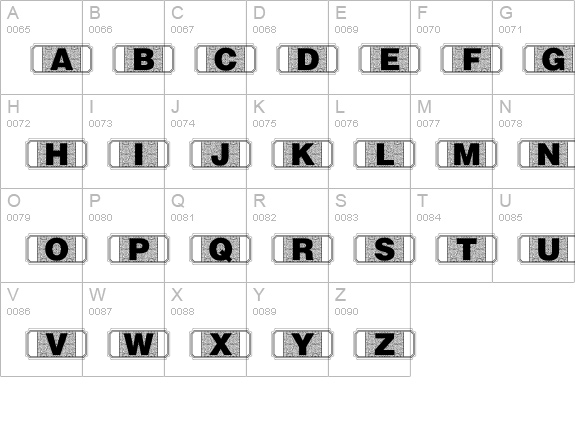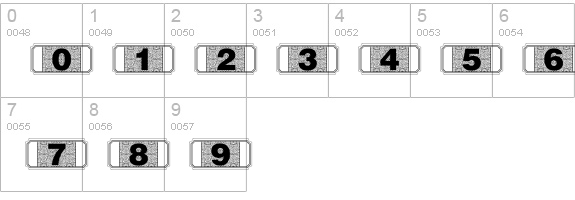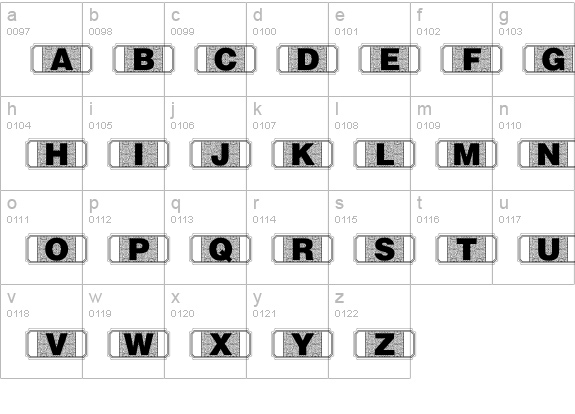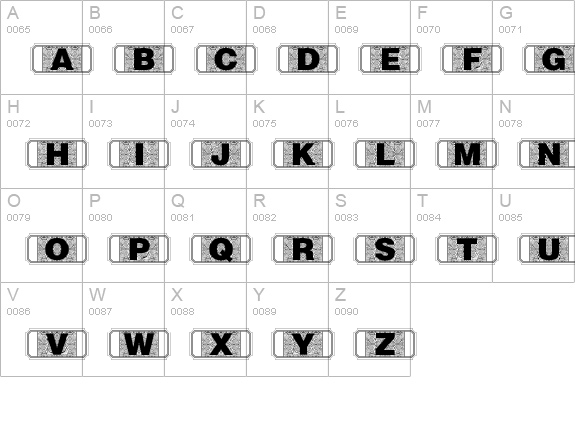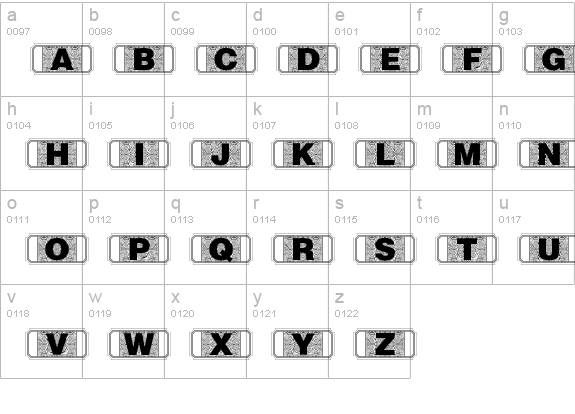
StagTickets font is a beautifully designed typeface that exudes elegance and sophistication. Its sleek and stylish letterforms are perfect for adding a touch of class to any project. This versatile font is suitable for a wide range of applications, from invitations and wedding stationery to branding and logo designs. One of the most appealing aspects of StagTickets font is that it is available for free. Yes, you read that right - this amazing font can be downloaded at no cost from FontsMarket.com. This means that you can enhance your designs with this stunning font without breaking the bank. StagTickets font features a unique combination of strong, bold lines and delicate curves, resulting in a harmonious and eye-catching aesthetic. The attention to detail in each character is evident, making it a delight to work with for both designers and typographers alike. Whether you're creating a vintage-inspired poster or a modern logo, StagTickets font will effortlessly elevate your design to new heights. Its timeless appeal ensures that it will remain a valuable asset in your font library for years to come. So why wait? Visit FontsMarket.com today and experience the beauty and versatility of StagTickets font for yourself. Download it for free and let your creativity soar as you explore the possibilities this font has to offer.